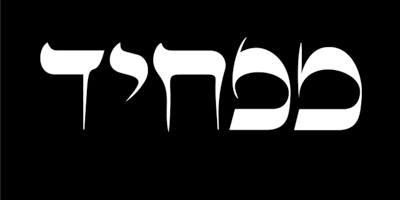
Tachsheet MF Font is perfect for Hebrew technical documentation, Israeli business communications, Hebrew user interfaces, modern Hebrew signage, Israeli government publications, Hebrew educational materials, contemporary Jewish newspapers, Hebrew software applications, Israeli corporate branding, and professional Hebrew communications where clean, functional Hebrew typography ensures clarity and efficiency in modern Hebrew text presentation.
What makes Tachsheet MF Font exciting is its masterful optimization of Hebrew letterforms for maximum functionality and readability that addresses the unique challenges of modern Hebrew typography in digital and professional environments. This font features precisely engineered Hebrew characters with optimal spacing, consistent proportions, and technical refinement that enhance reading speed and comprehension while maintaining cultural authenticity. The functional styling and professional personality make it ideal for applications requiring Hebrew text efficiency, corporate credibility, and the reliable performance of contemporary Hebrew communication systems.
Tachsheet MF Font family includes Light, Regular, Medium, and Bold weights, each maintaining the font's characteristic Hebrew functionality while offering different levels of visual hierarchy for professional Hebrew design systems. The family also features comprehensive Hebrew character coverage, technical symbols, and modern Hebrew punctuation essential for complete business and technical documentation. Each variant preserves the font's efficient character while providing flexibility for diverse Hebrew professional applications and institutional requirements.
The Tachsheet MF Font Free Download offers Hebrew professionals and organizations access to typography specifically engineered for modern Hebrew workplace efficiency and professional communication excellence. This font's technical approach makes it exceptional for Hebrew business applications, Israeli corporate communications, and professional Hebrew documentation where clarity and productivity are paramount. Its versatility extends to Hebrew digital platforms, Israeli business software, and contemporary Hebrew applications requiring professional-grade typography performance.
Tachsheet MF Font supports extensive Hebrew character sets including business terminology, technical notation, and professional symbols necessary for comprehensive Hebrew workplace communications and corporate documentation. The font's precisely calibrated metrics ensure optimal Hebrew text flow and professional presentation while maintaining the functional character that defines efficient Hebrew typography. Its robust construction delivers consistent performance across Hebrew digital interfaces and professional printing applications.
The font's reliable presence makes it particularly effective for Hebrew business communications, Israeli corporate identity, and professional Hebrew applications where efficiency and clarity are essential for successful Hebrew-language business operations. Whether designing Hebrew corporate reports, Israeli business presentations, or Hebrew technical manuals, Tachsheet MF Font delivers professional Hebrew typography that enhances workplace productivity while maintaining Hebrew cultural integrity and advancing modern Hebrew professional communication standards effectively.